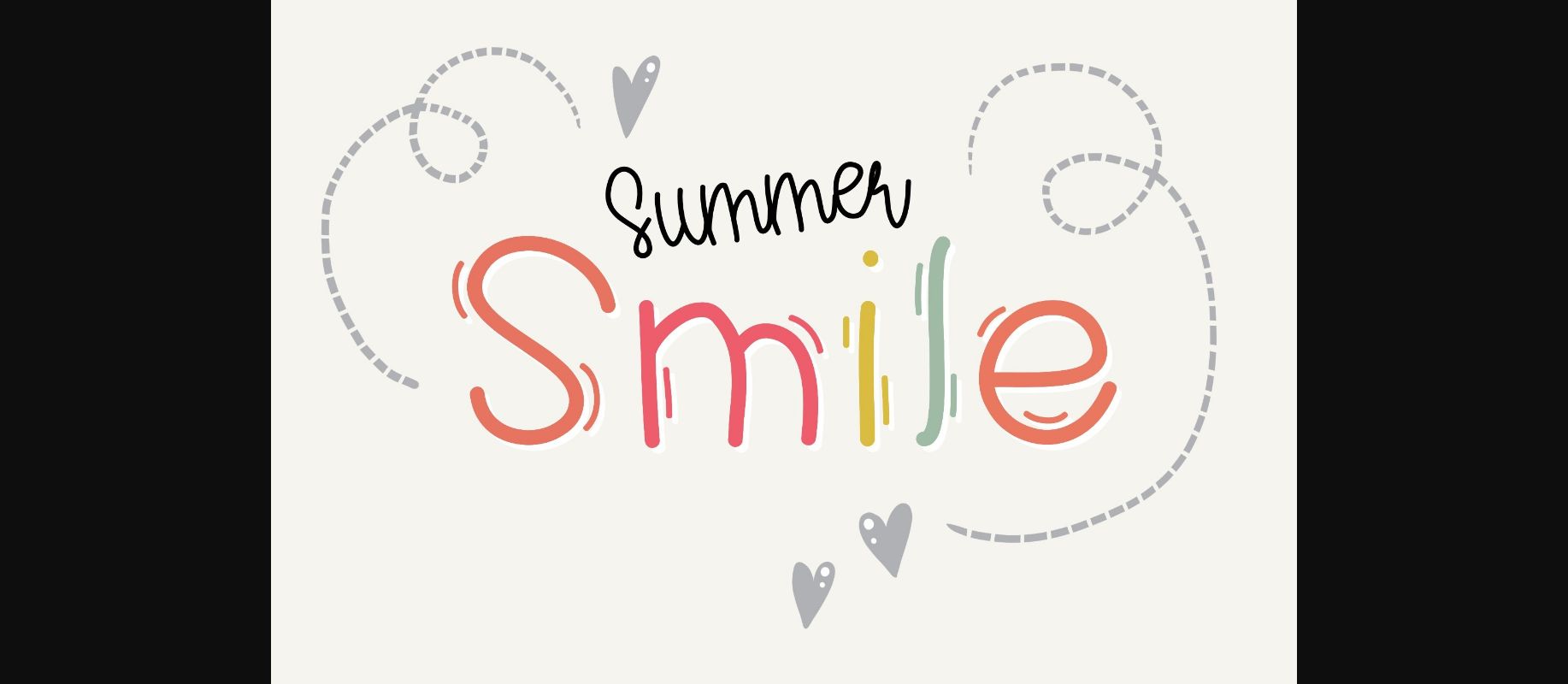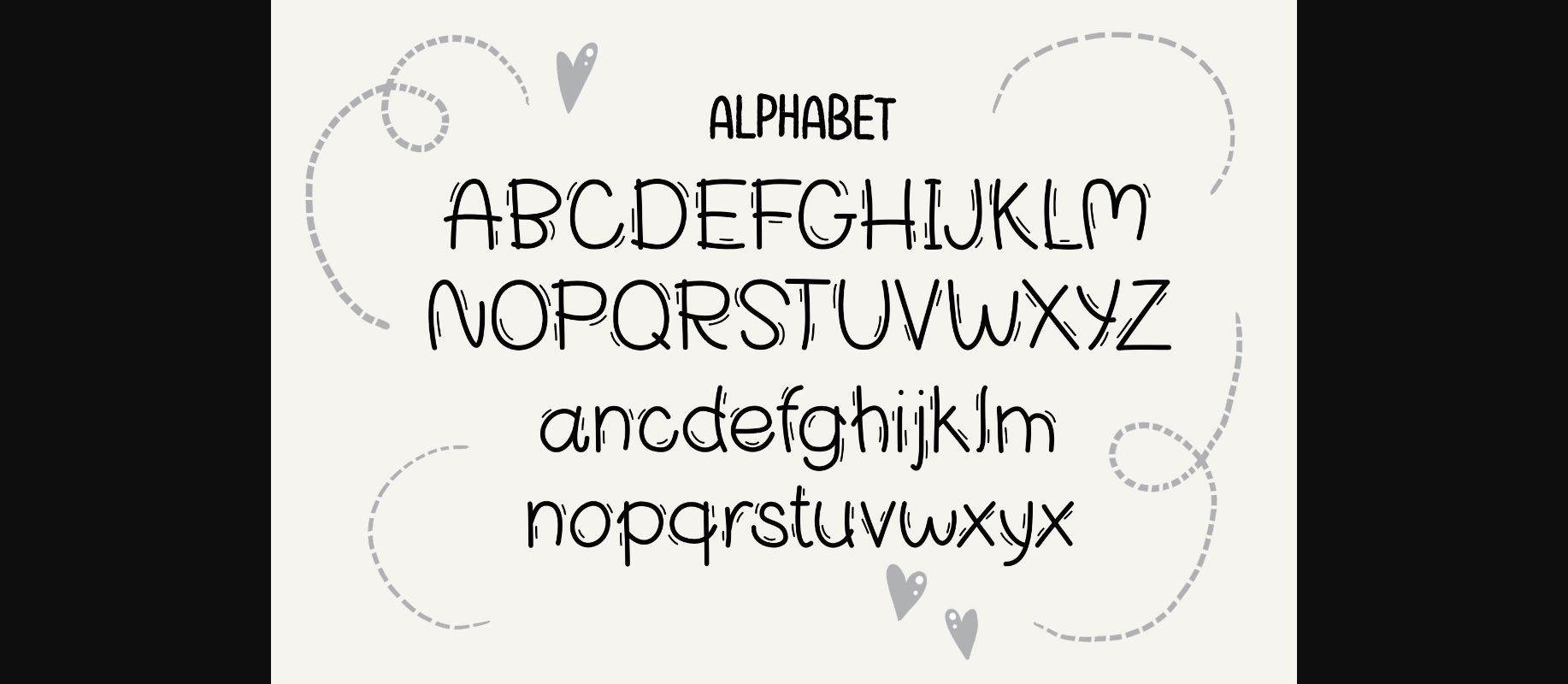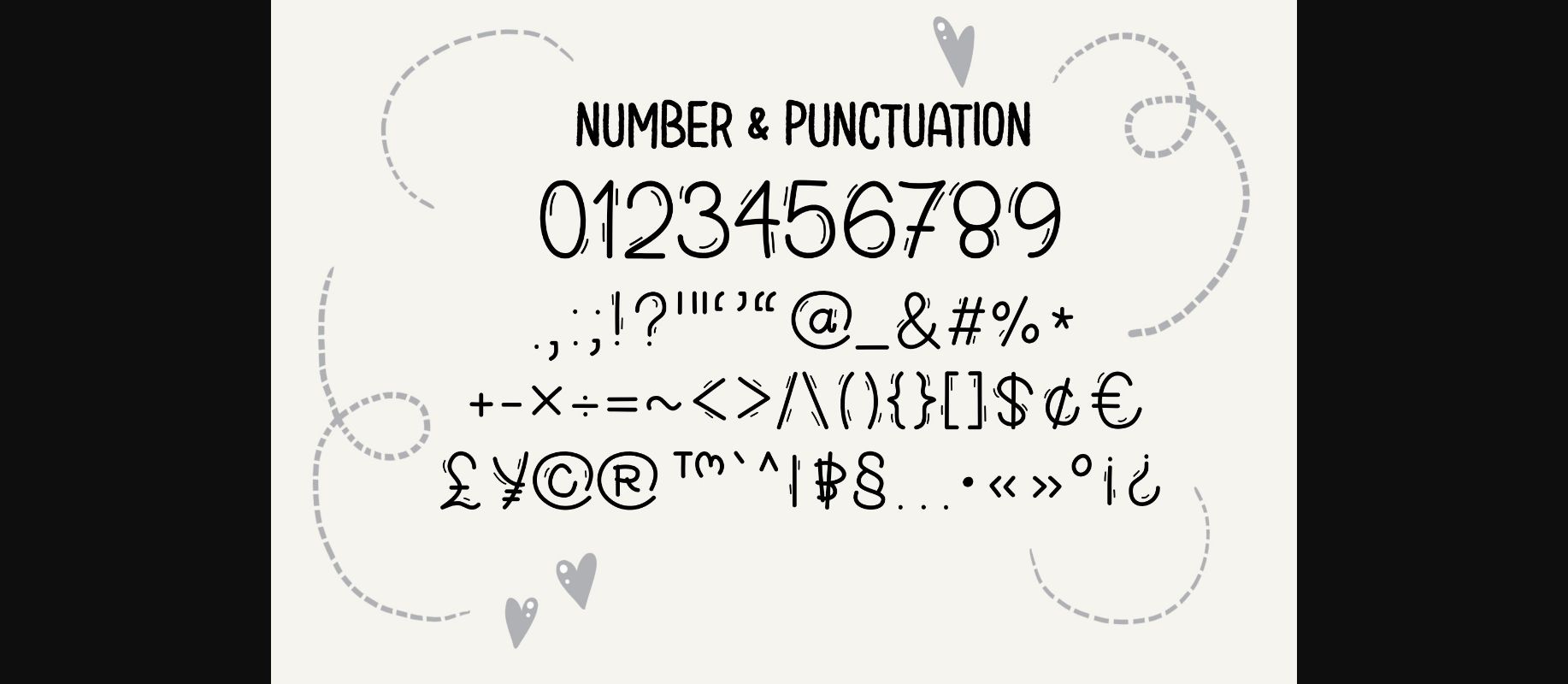
About Summer Smile Font
Summer Smile is a cute handwritten font with a little line. This font is the perfect fit for all of your logos, branding, social media, crafty DIY projects, and much more!